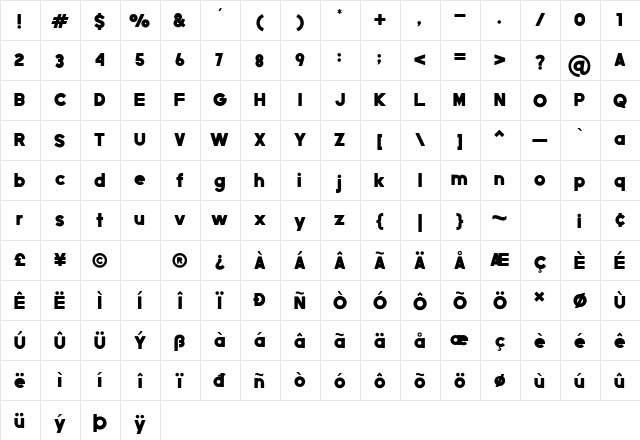
Genta Regular
| Foundry | Hans Co |
| Designer | Burhan Afif |
Design Context for Genta Typeface
Genta offers clean, dependable letterforms without strong stylistic allegiance, making it a practical choice for designers who need flexibility.